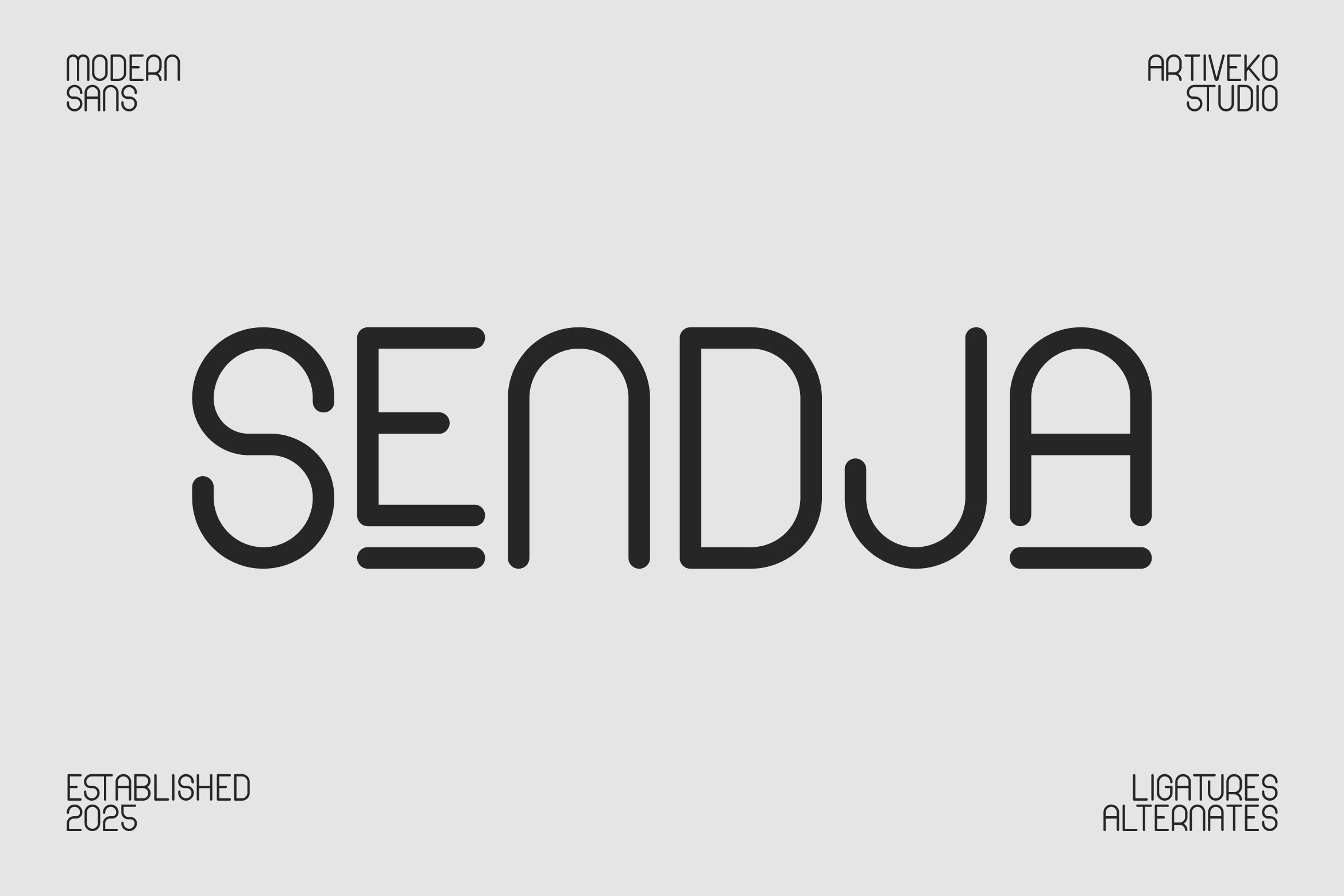
- Sendja Minimalist Sans Serif Font
Sendja is a smooth and friendly rounded sans serif font designed to bring a soft, approachable feel to your typography. Featuring clean geometry, gentle curves, and balanced proportions, Sendja is perfect for branding, packaging, editorial layouts, social media graphics, and UI/UX projects that require both clarity and warmth.
Its contemporary yet welcoming style makes it ideal for lifestyle brands, kids’ products, tech startups, and creative campaigns. Whether used for bold headlines or readable body text, Sendja maintains excellent legibility with a modern, polished touch.
The font includes uppercase and lowercase letters, numerals, punctuation, multilingual support, and stylistic alternates for versatile customization.
Add a friendly and modern charm to your designs with Sendja — the rounded sans serif that blends simplicity, clarity, and elegance in every letter.